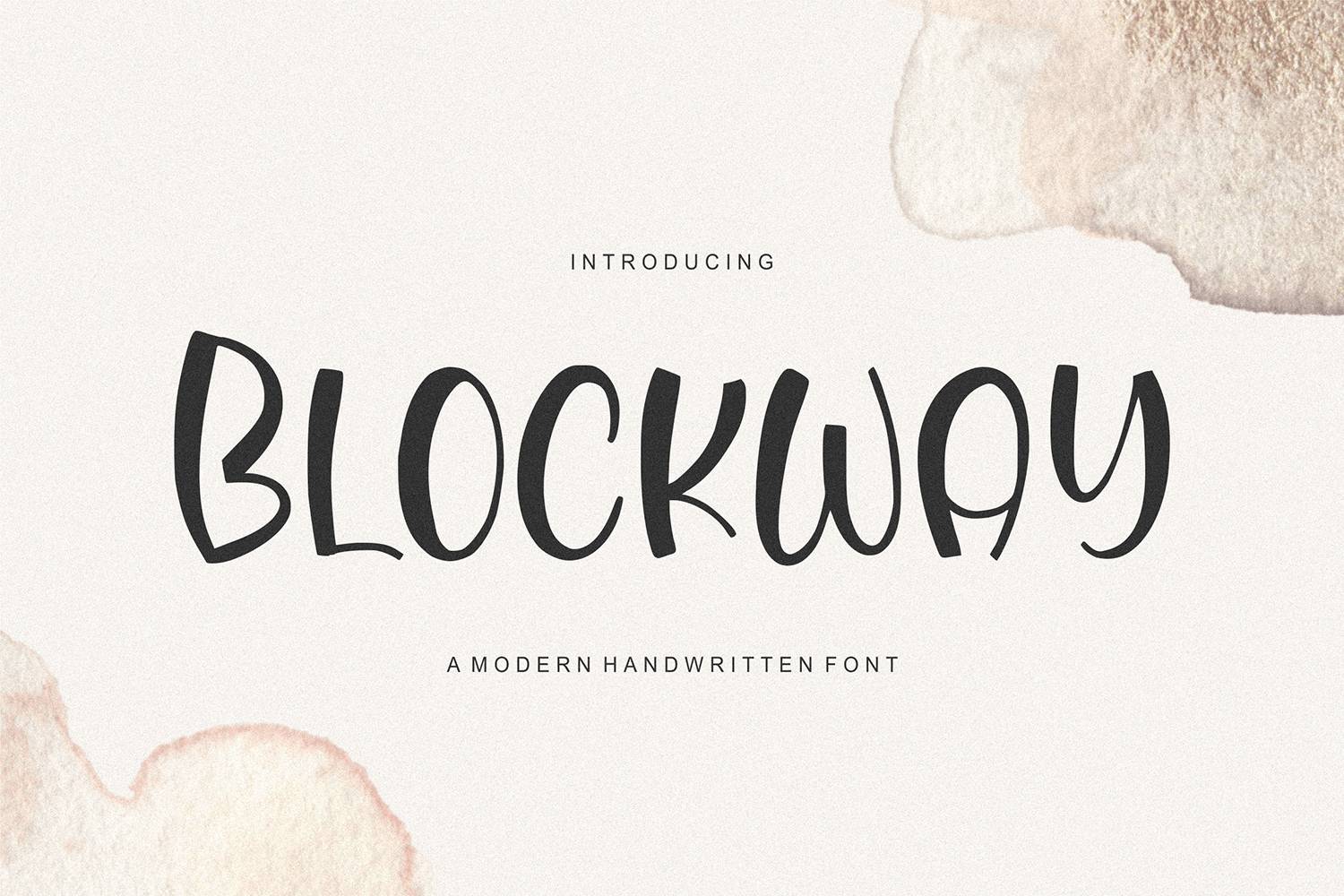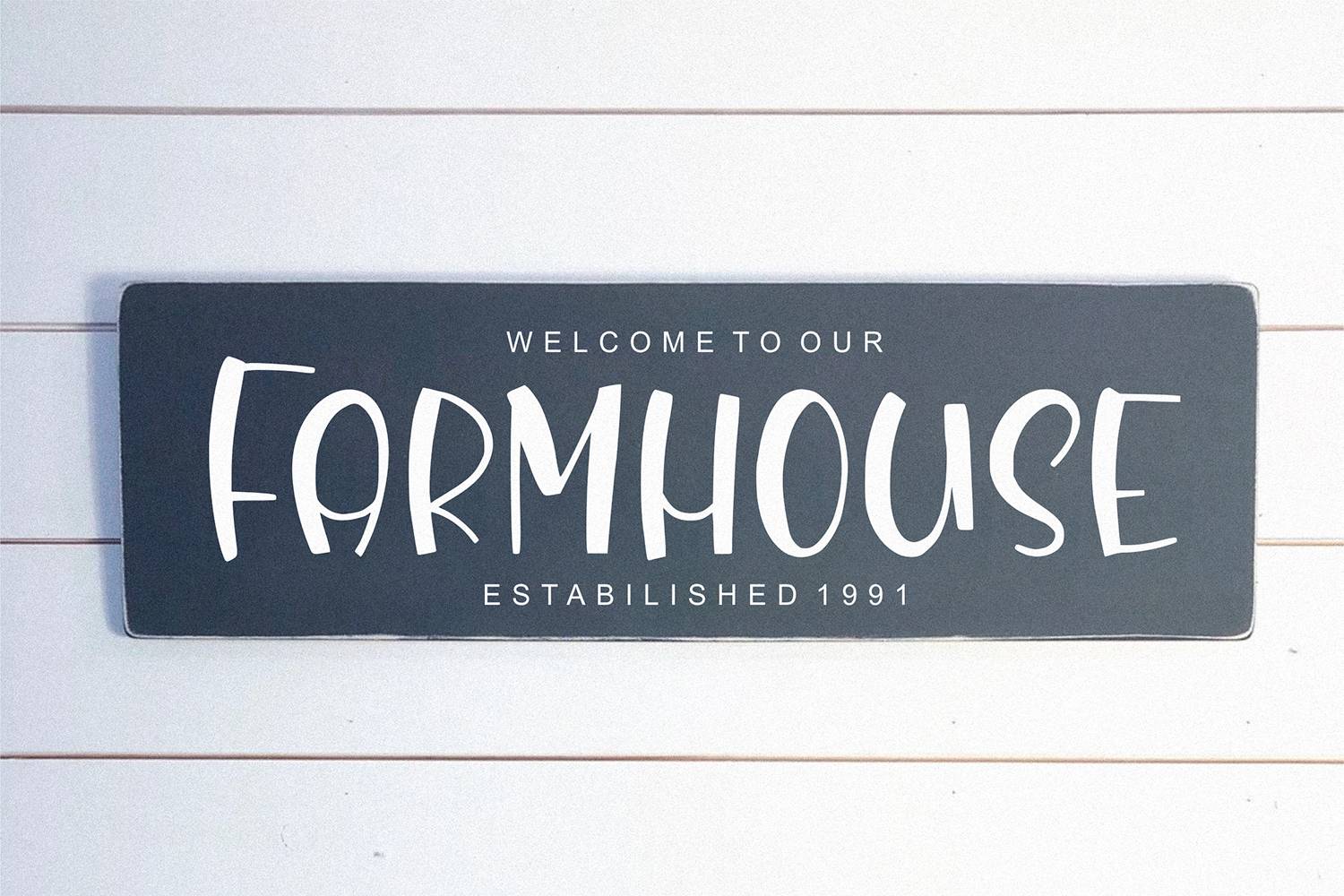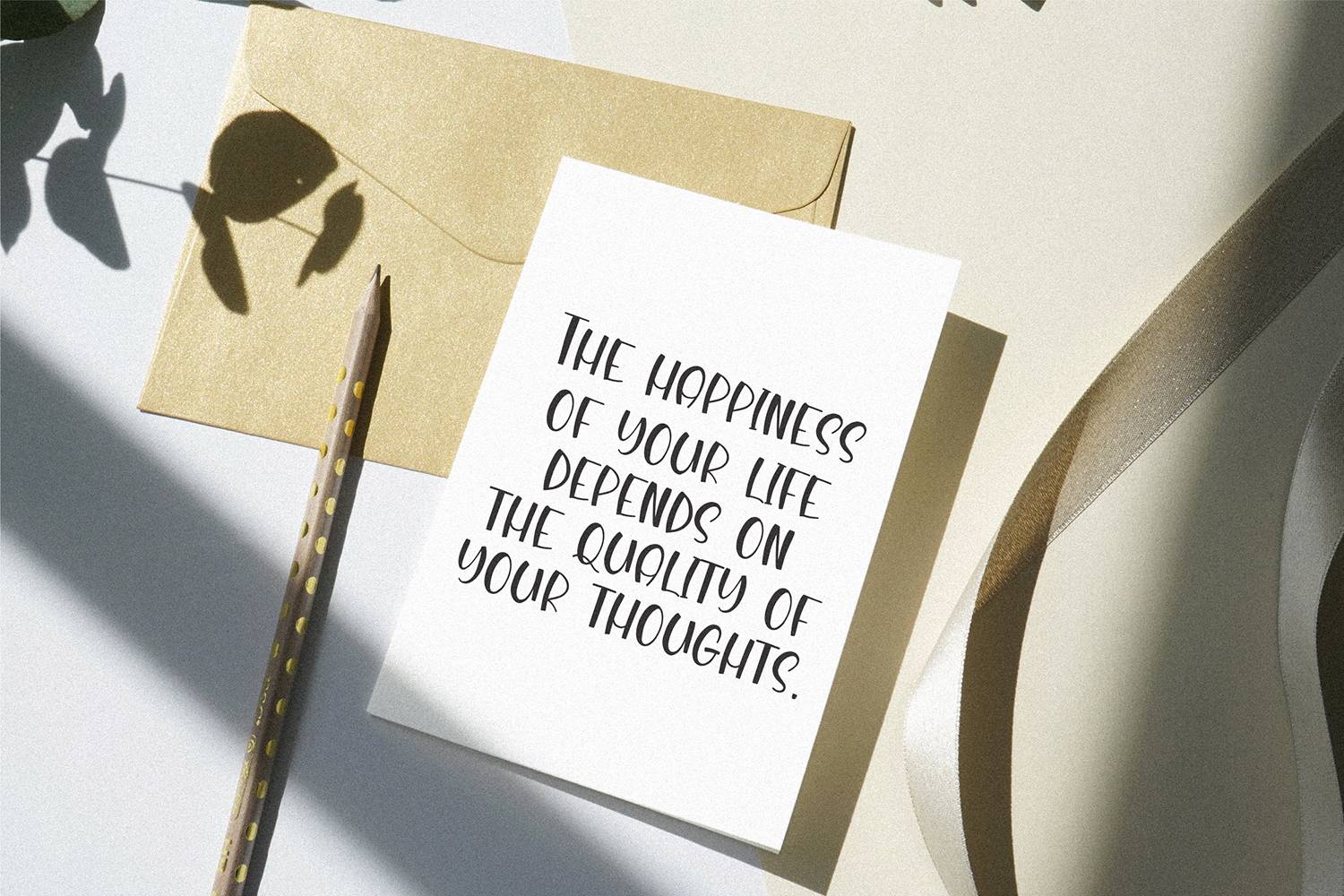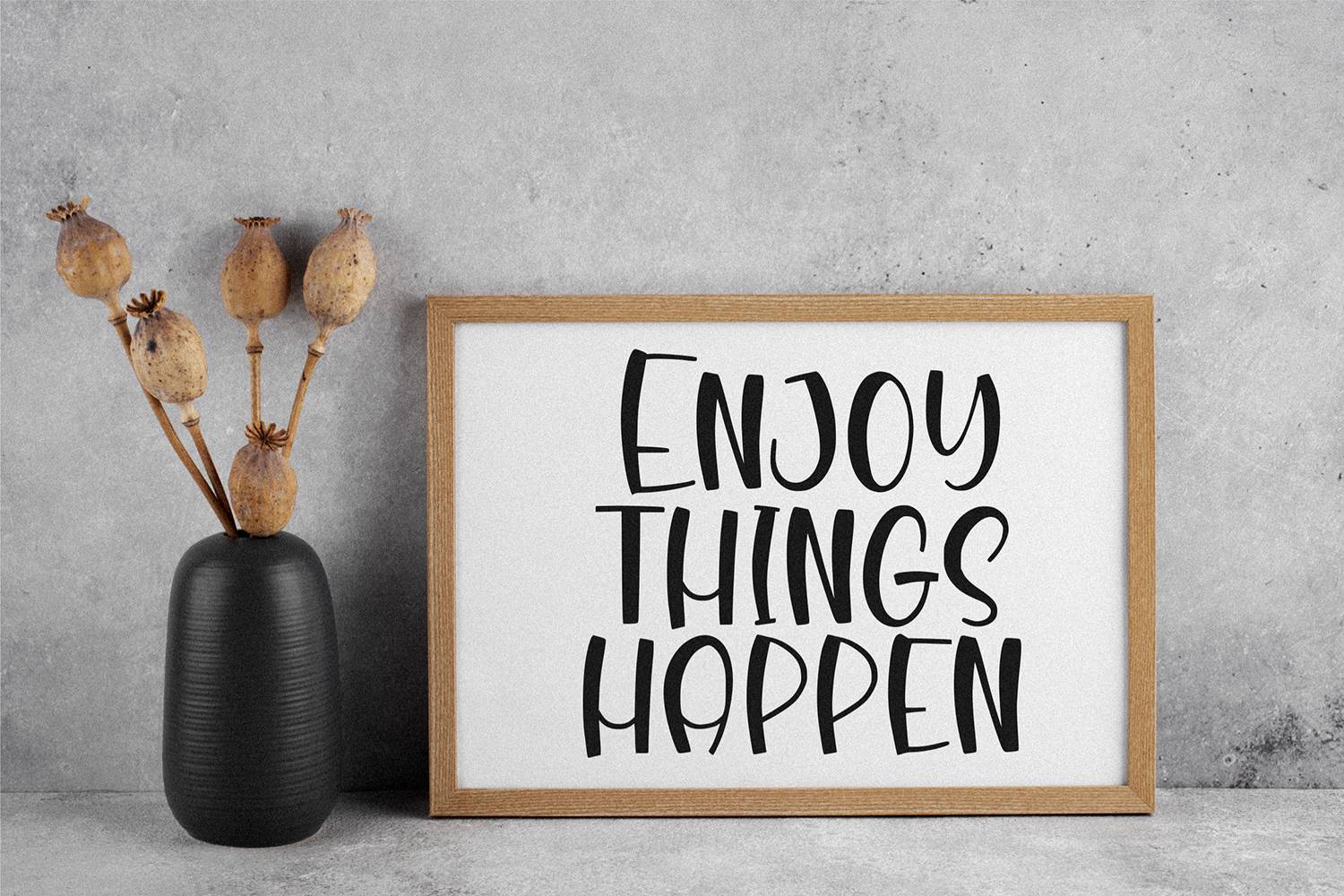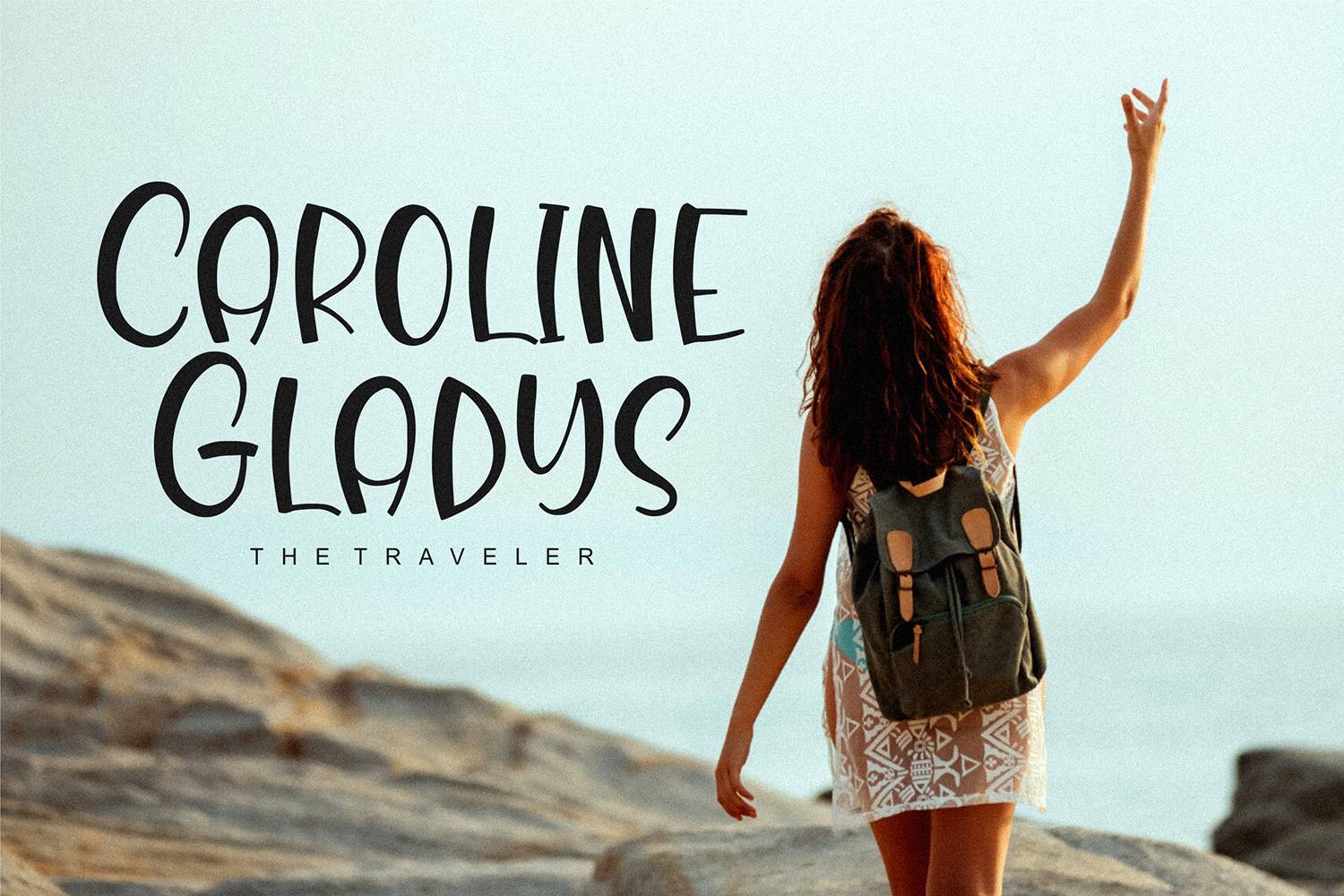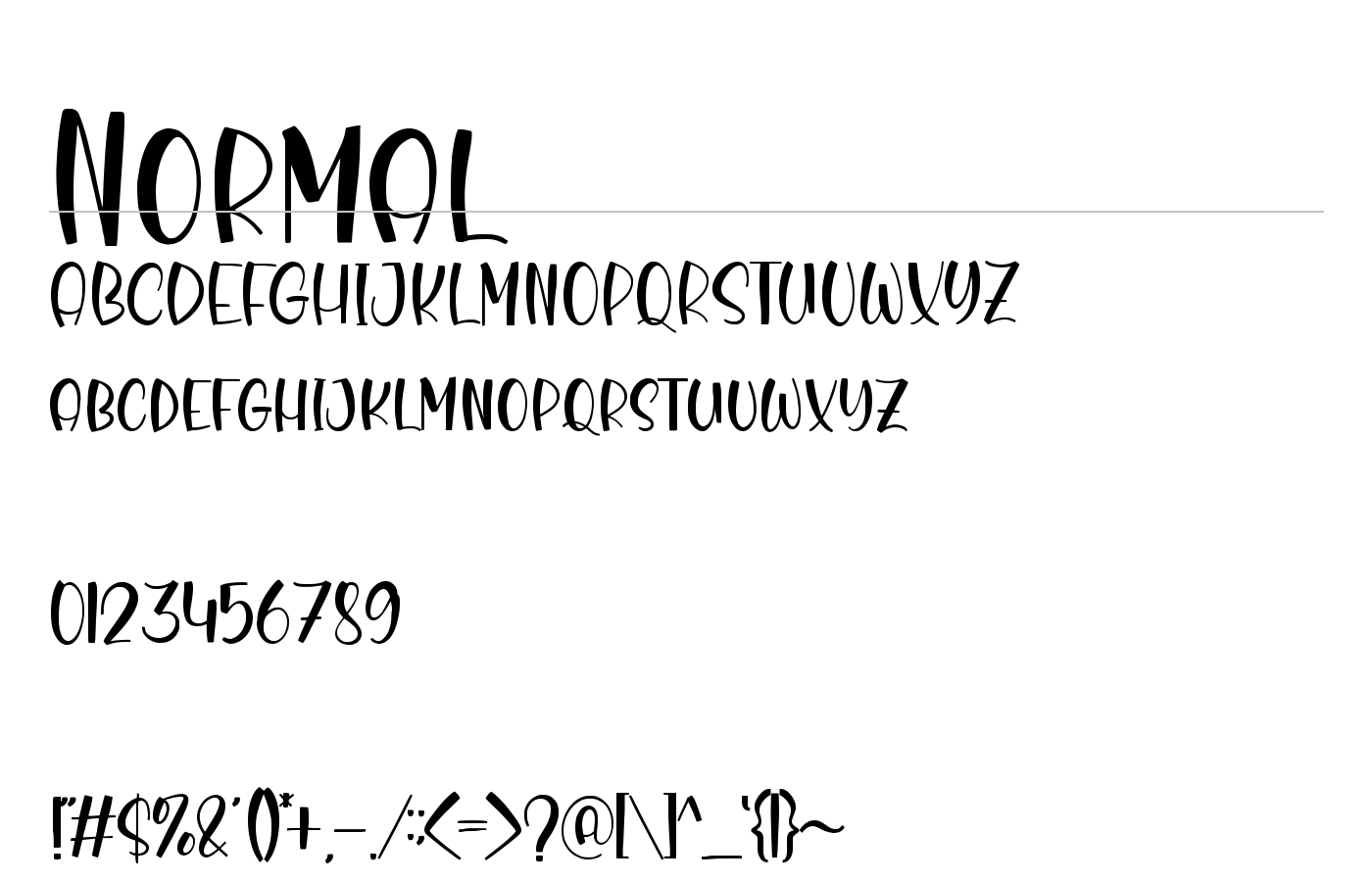
Blockway is a quirky, tall, and narrow sans serif font with playful, hand-drawn letterforms that give it a casual and friendly vibe. Its irregular stroke widths and unique character shapes make it perfect for creative projects, informal branding, and eye-catching headlines where a fun and approachable style is desired. This font works well in posters, kids' products, and lifestyle branding that seeks a lively and distinctive look.
Blockway Font
About Blockway Font
| Font family | Blockway Font |